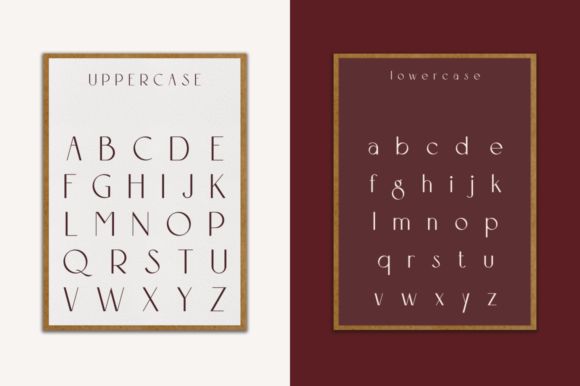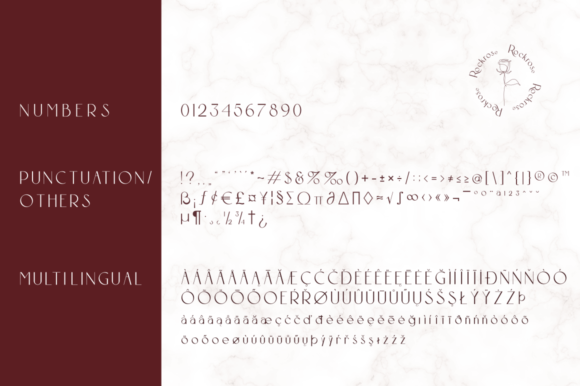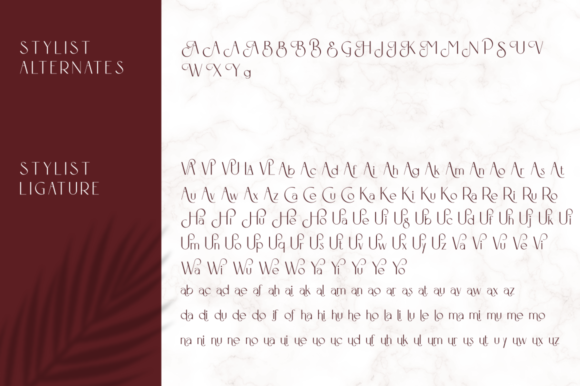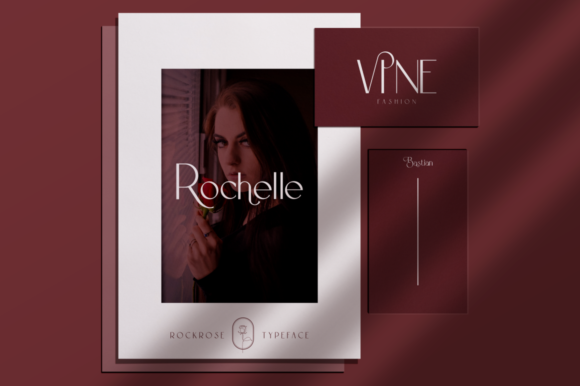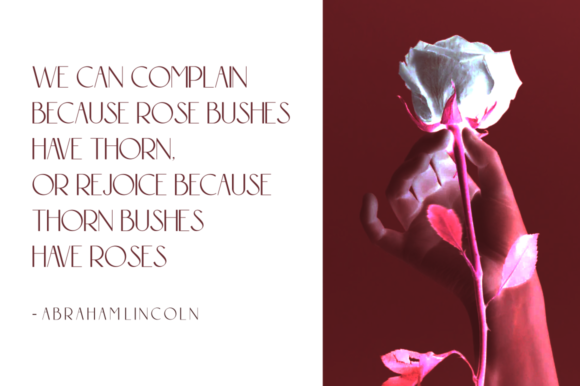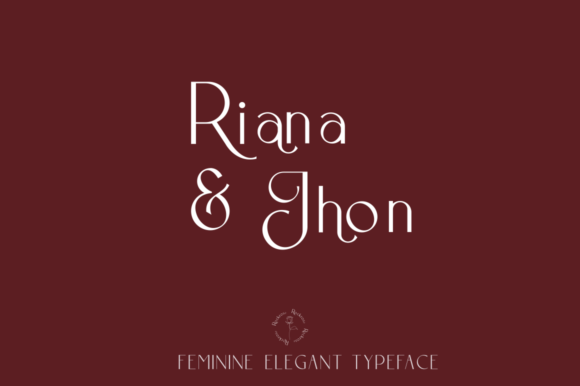
Introduction to Rockrose Font
Rockrose is a stylish display font.
This is a beautiful combination of timeless elegance and authentic calligraphy Fall in love with its authentic feel and use it to create gorgeous wedding invitations, beautiful stationary art, eye-catching social media posts, and cute greeting cards.